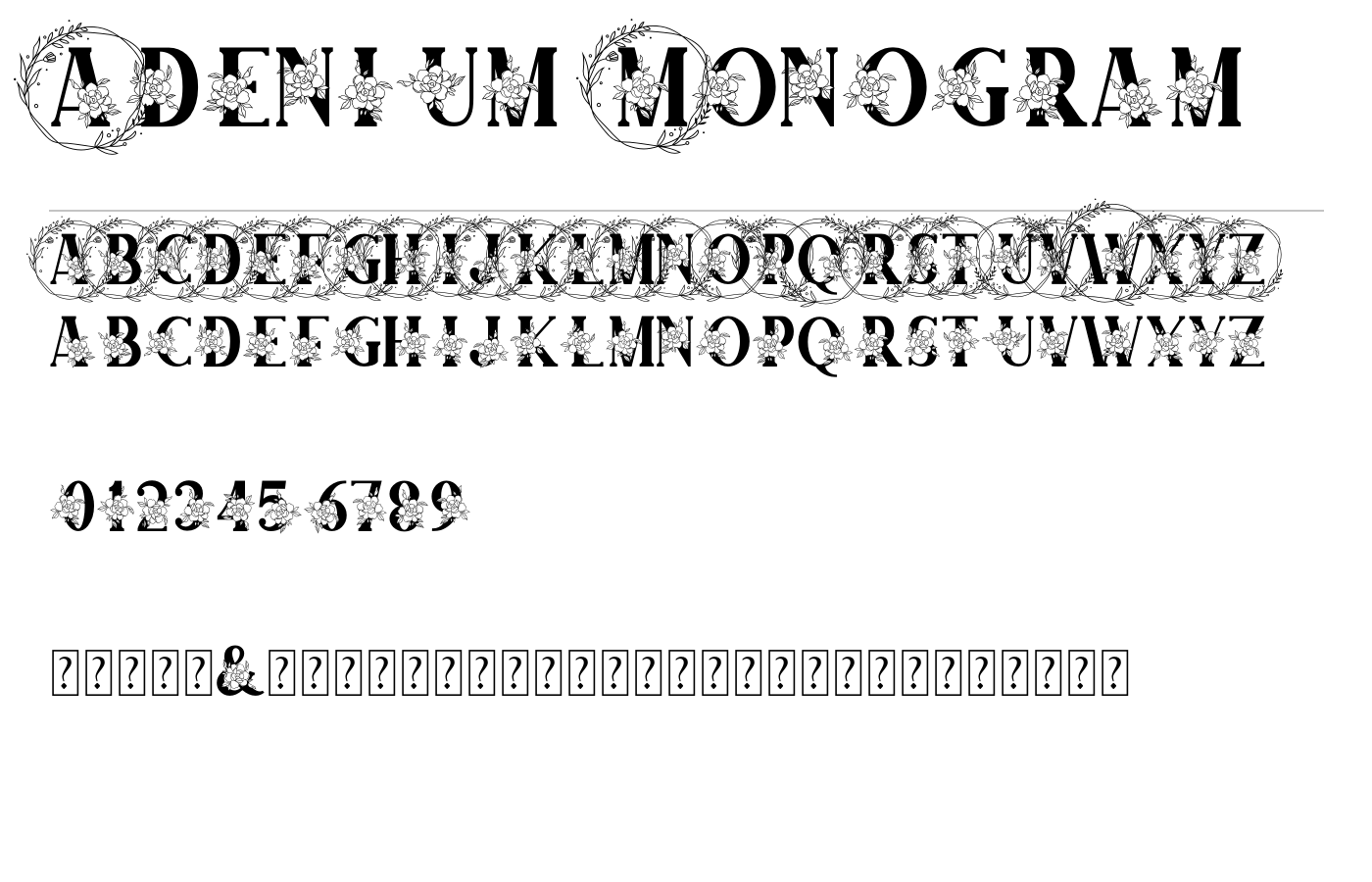
Adenium Monogram is an elegant serif font with high contrast and refined, thin serifs, beautifully adorned with delicate floral decorations that give it a vintage, ornate feel. Perfect for luxury branding, wedding invitations, and sophisticated logos, it combines classic typography with artistic flourishes to create a stylish, memorable impression. This font works best in display settings where its decorative details can shine, adding charm and elegance to any design.
Adenium Monogram Font
About Adenium Monogram Font